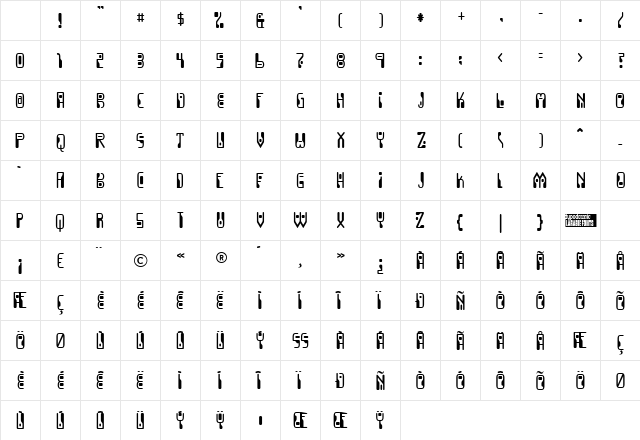
Complete Dignity Of Labour Regular glyph index. Displaying only characters natively supported by Dignity Of Labour Regular font.
Dignity Of Labour is a composed and adaptable typeface that performs quietly and consistently across a wide range of design contexts.